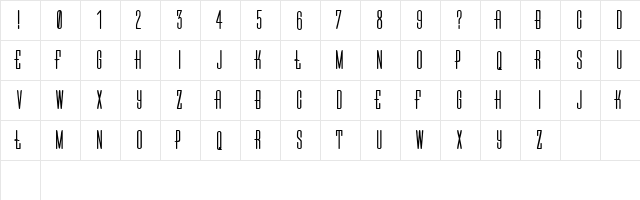
Poland Regular Font Preview
Poland Regular
Poland Regular Font Details
Design Context for Poland Typeface
Poland offers clean, dependable letterforms without strong stylistic allegiance, making it a practical choice for designers who need flexibility.